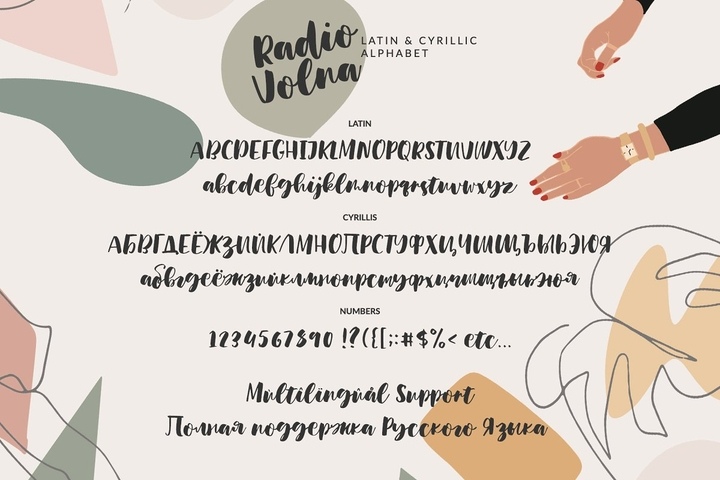
Radio Volna Font
Radio Volna Font is perfect for retro music branding, vintage radio station identity, nostalgic advertising campaigns, classic car show materials, mid-century modern design projects, and throwback entertainment venues. Its distinctive character makes it ideal for recording studios, vinyl record labels, vintage audio equipment, rockabilly bands, classic diner signage, and any project requiring authentic mid-20th century broadcasting aesthetics with nostalgic charm.
This font is exciting because it captures the golden age of radio broadcasting and the excitement of vintage airwave communications while delivering modern digital functionality and exceptional versatility. The carefully crafted letterforms evoke memories of crackling radio transmissions, late-night DJ shows, and the magical era when radio waves connected communities across vast distances, creating powerful emotional connections with audiences who appreciate authentic retro culture.
The Radio Volna Font family typically includes Regular, Bold, and condensed variations with period-appropriate decorative elements, broadcasting symbols, and vintage radio-inspired ornaments. This comprehensive collection enables designers to create cohesive brand systems that maintain authentic retro character while providing flexibility for various applications requiring nostalgic appeal and vintage broadcasting aesthetics.